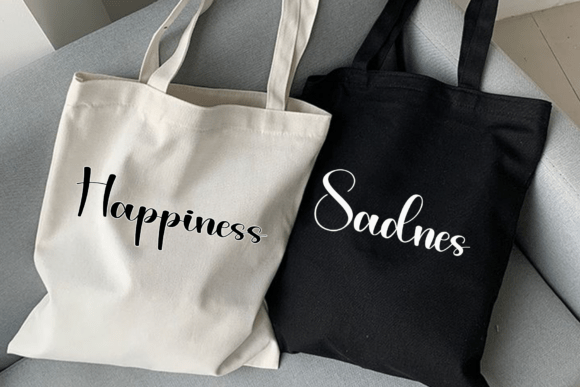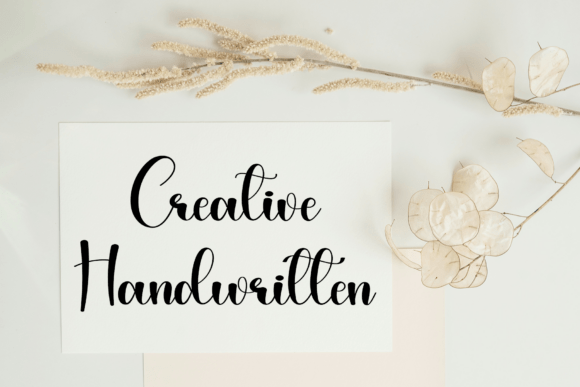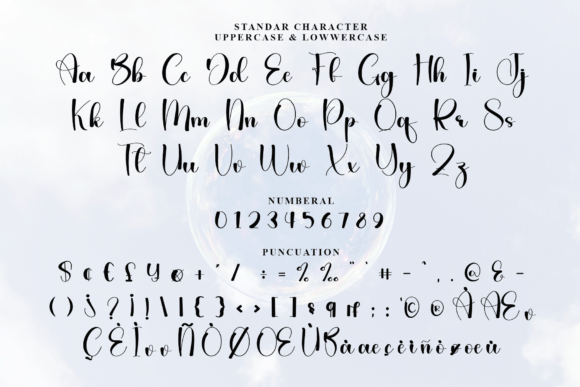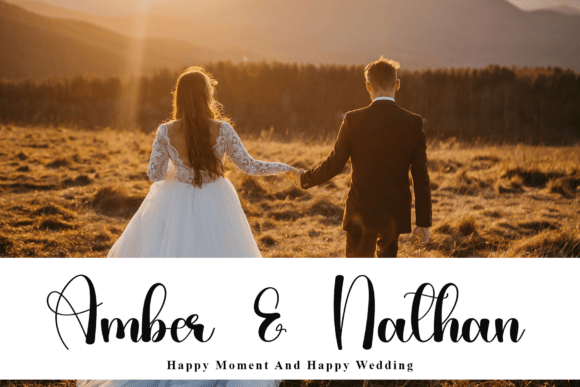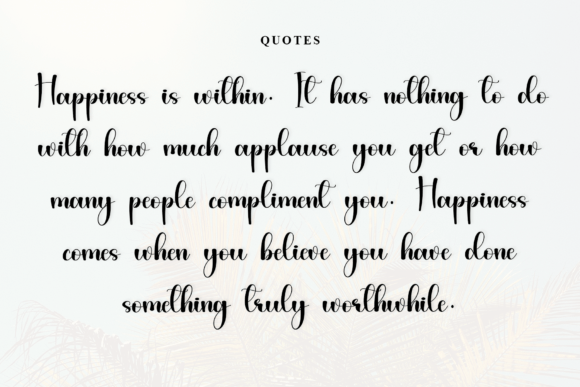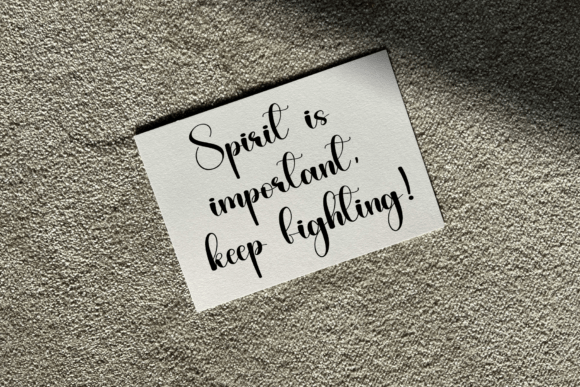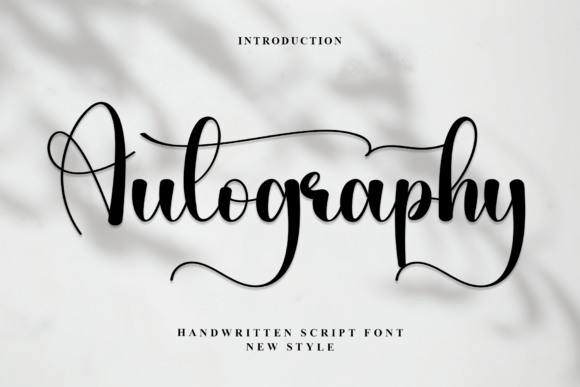
The Art of Handwritten Charm
Do you remember the first time you fell in love with a handwritten note? Maybe it was a love letter from a secret admirer, a birthday card from a child, or a thank-you note from a friend. Whatever the reason, there’s something special about the imperfections and uniqueness of handwritten text that makes it stand out.
Enter the Autography Font, a delicate and carefully crafted handwritten font that brings a touch of elegance and sophistication to any design. Whether you’re creating invitations, packaging for food products, or simply want to add a personal touch to a title or heading, Autography Font is the perfect choice. Its versatility and unique charm make it a valuable asset for designers looking to add a personal and creative touch to their work.
Autography Font Key Features
- Font Style: Script, Handwritten
- Unique Characteristics: Handwritten and cursive font with a natural, organic feel; perfect for creative and artistic applications
Autography Font Review
As a designer, I’ve had the chance to work with the Autography Font, and here’s my honest take on it.
- Unique and elegant design: Autography Font has a distinctive, flowing style that’s perfect for titles and headings.
- High-quality vectors: The font files are well-optimized and easy to use, even at large sizes.
- Good legibility: The font is clear and readable, making it suitable for body text as well.
- Limited character set: Autography Font is a script font, and it’s not suitable for text that requires a full character set.
- No support for non-Latin scripts: If you need to use the font with non-Latin scripts, you might be out of luck.
- Not ideal for small text: The font’s design makes it less readable at small sizes, so use it wisely.
Overall, I think Autography Font is a great choice for designers who need a elegant, unique font for their projects. While it has some limitations, it’s a solid option for titles, headings, and other display text. Just be aware of its limitations, and use it accordingly.
Alternatives to Autography Font for Designers
Lobster Font is a playful, cursive script font perfect for creating a fun and youthful atmosphere. It’s ideal for use in headings, titles, and promotional materials. Lobster Font is similar to Autography Font in its cursive style, but it’s more casual and less formal.
Playfair Display is a luxurious, high-end serif font that exudes elegance and sophistication. It’s perfect for use in formal invitations, luxury branding, and high-end publications. While Autography Font has a more relaxed feel, Playfair Display is more refined and polished.
Great Vibes is a modern, script font that’s perfect for creating a trendy and edgy atmosphere. It’s ideal for use in headings, titles, and promotional materials, particularly in the fashion and entertainment industries. Great Vibes is similar to Autography Font in its cursive style, but it’s more modern and less traditional.
Carolyna Pro is a elegant, modern script font that’s perfect for use in high-end branding, luxury packaging, and fashion design. It’s ideal for creating a sophisticated and refined atmosphere, and is particularly well-suited for use in titles, headings, and product names. Carolyna Pro is similar to Autography Font in its elegant feel, but it’s more refined and less casual.